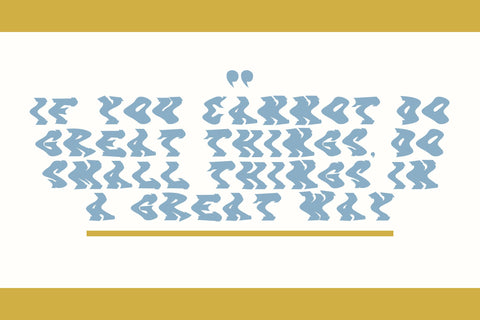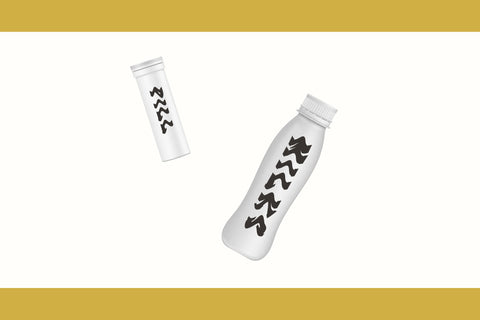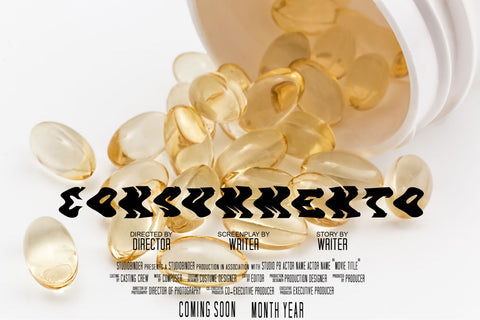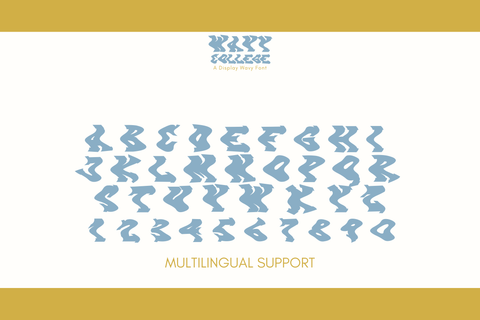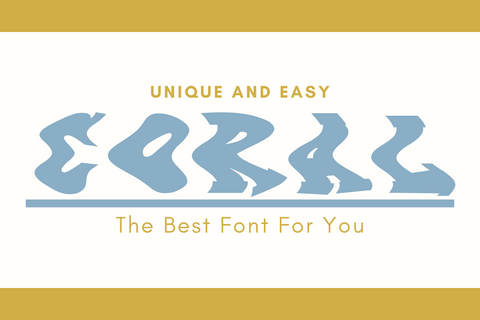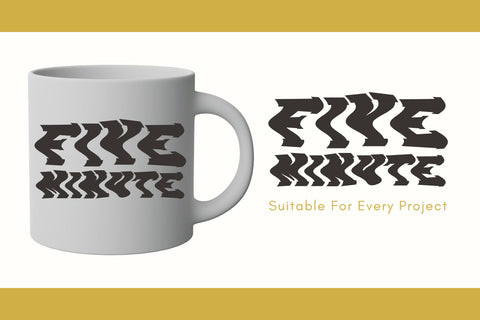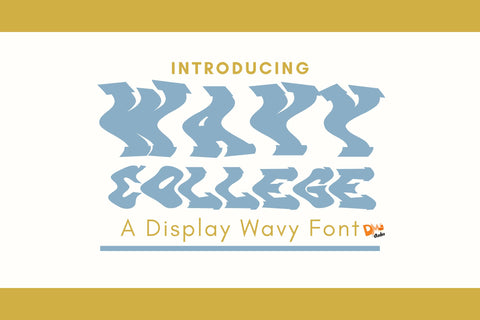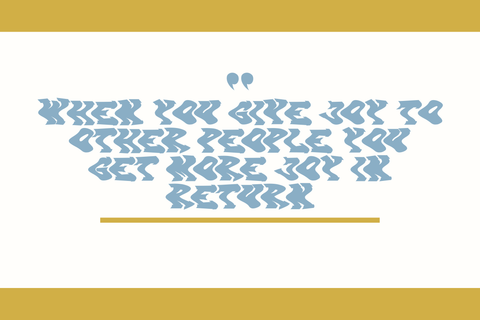
Wavy College
Wavy College – A Playful & Bold Collegiate Font
Wavy College is a unique display font that combines classic collegiate aesthetics with a fun, wavy twist. Perfect for school-themed designs, sports branding, retro projects, posters, apparel, social media graphics, and more, this font adds a dynamic and energetic feel to any creative work.
• Collegiate with a Wavy Twist: A bold varsity-inspired font with a fun, fluid motion.
• Perfect for School & Sports Designs: Ideal for team logos, banners, merchandise, and retro themes.
• Versatile Display Font: Great for eye-catching headlines, posters, and branding.
• Multilingual Support: Includes extended Latin characters for multiple languages.
• Complete Character Set: Includes uppercase, lowercase, numbers, punctuation, and symbols.